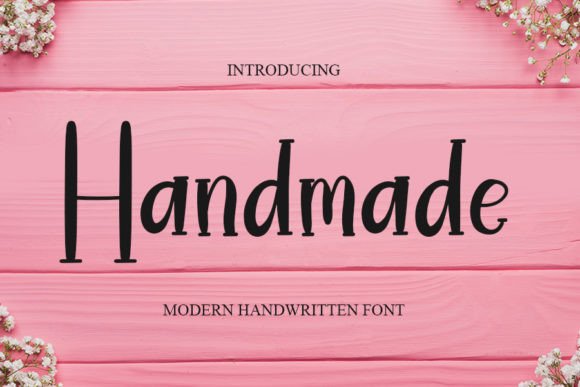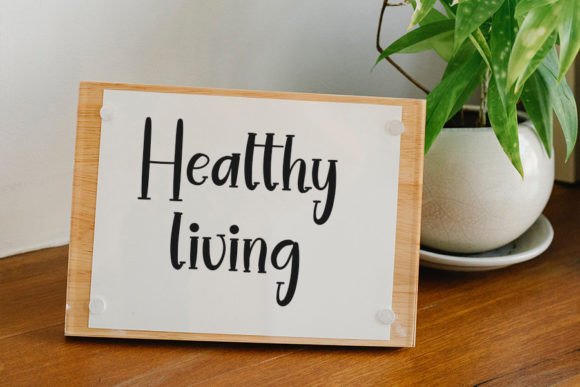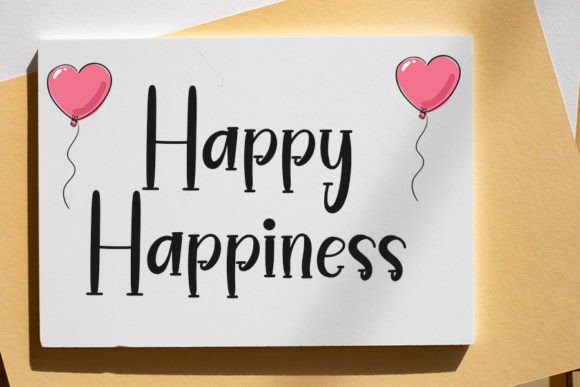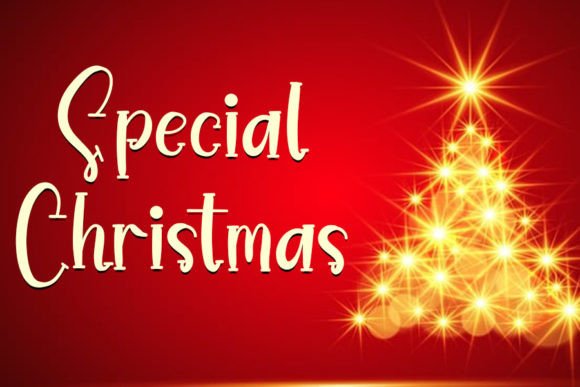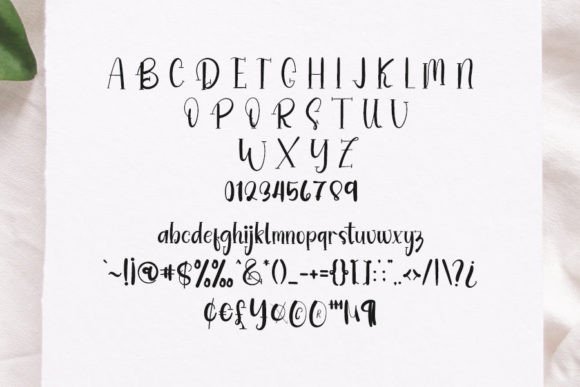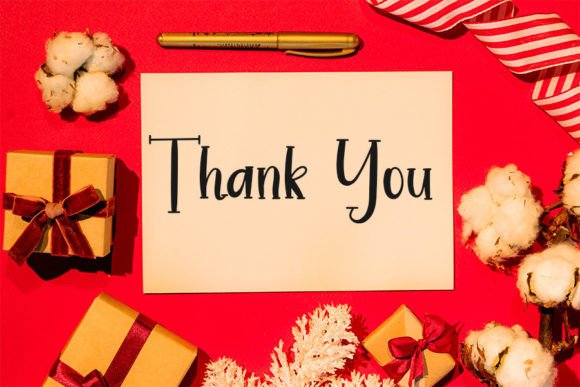
Handmade Font Download – Elegant Neat Handwritten Script
The Handmade Font download is a neat and stylish handwritten script designed to add charm and elegance to your creative projects. With its graceful strokes and timeless character, this font works equally well for personal and professional designs. Because of its adaptability, it is a valuable addition to any designer’s collection.
Elegant and Timeless Handwritten Style
Handmade features smooth, balanced letters that give your text a refined look. As a result, it feels sophisticated while keeping a natural handwritten charm. In addition, its timeless qualities ensure that designs created with it remain fresh.
From wedding invitations to personal greeting notes, this font adds a heartfelt and stylish touch. It makes messages look warm, personal, and memorable. Therefore, it is an excellent choice for stationery projects.
Handmade Font Download for Logos and Posters
The Handmade Font download also fits perfectly in logos, posters, and branding materials. Its elegant strokes make designs stand out, while its readability ensures professional results.
Versatility Across Creative Projects
From digital artwork and social media content to printed crafts, Handmade adapts beautifully. In addition, its neat handwritten flow makes it suitable for projects ranging from casual to formal.
Readability and Design Balance
While some decorative fonts look attractive but lack clarity, Handmade achieves a balance between elegance and readability. As a result, it works well in both large titles and supporting text.
Why Add This Script Typeface to Your Collection?
The Handmade Font download is versatile, elegant, and easy to use. In other words, it is perfect for greeting cards, posters, logos, branding, and creative DIY designs. Finally, it is a handwritten script that adds timeless beauty and creativity to every project.